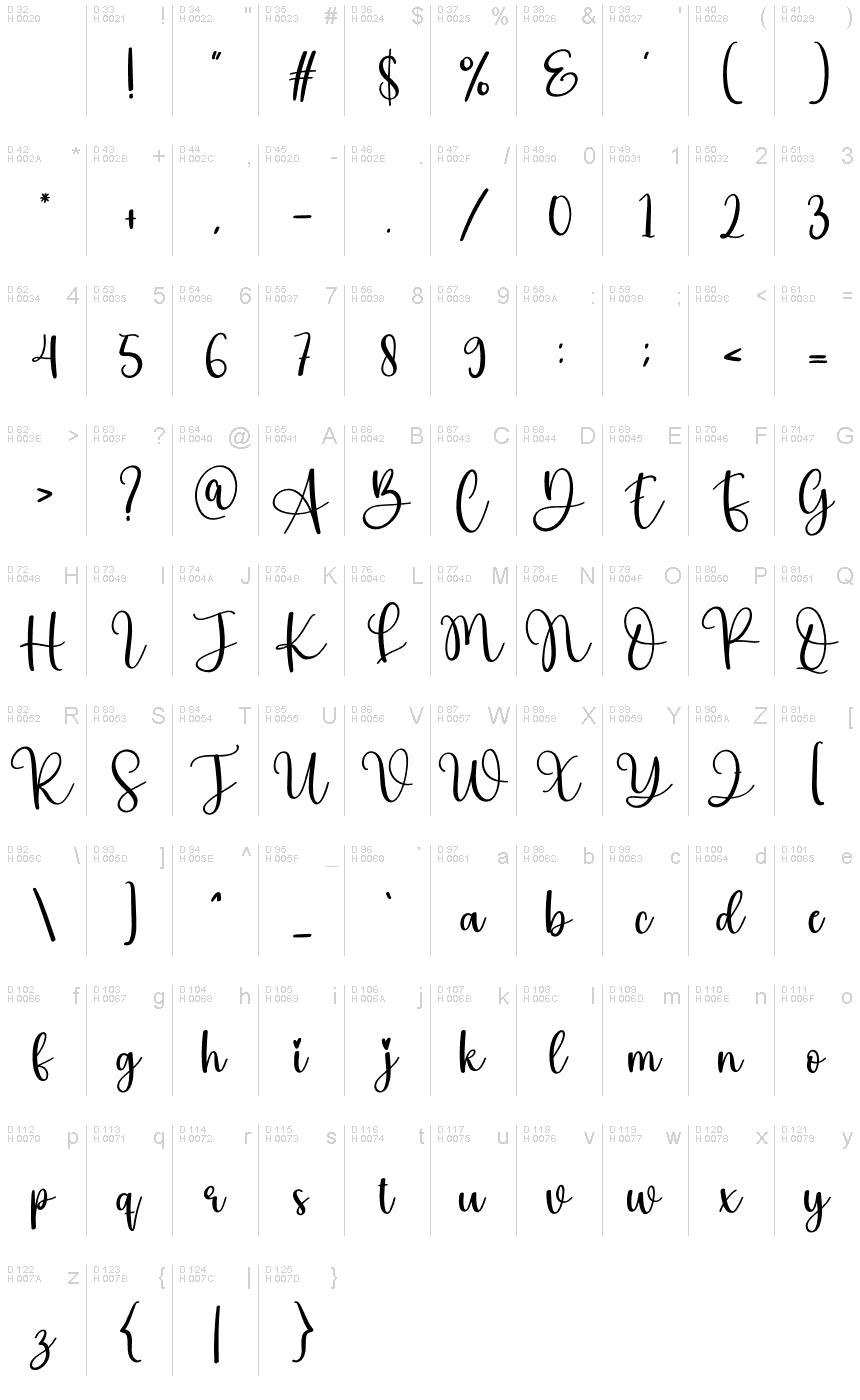
Biscuit
Biscuit, designed by scratchones, is a captivating calligraphy font that effortlessly blends elegance with modernity. Its semi-light weight adds a delicate touch to any project. Perfect for wedding invitations, greeting cards, and logo designs, this font exudes refinement and sophistication. Its graceful strokes and flowing curves bring an air of romance to your creations. Whether you're designing a feminine brand or crafting a whimsical poster, Biscuit will infuse your work with charm and grace. Elevate your designs with this enchanting typeface that's sure to leave a lasting impression.
the latest style letters are perfect for wall displays, wedding invitations, social media post logos, advertisements, product packaging, product designs, labels, photography, watermarks, invitations, stationery, and any project that requires taste handwriting.